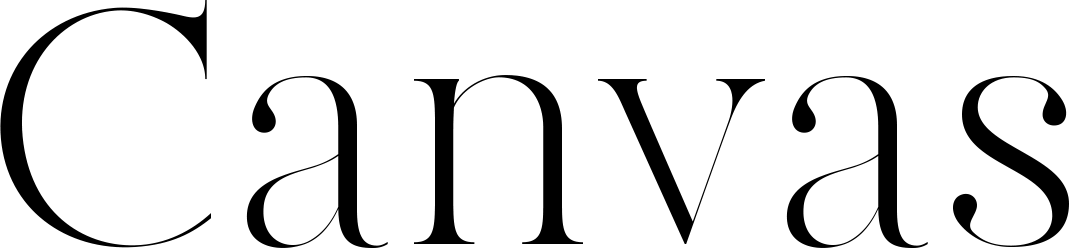
MADE Canvas Font
This modern fashion font has a classy look and stands the test of time. A super-strong contrast is visible in the design of this font. Under the serif font category, you can hardly find a didone font with hairlines as thin as MADE Canvas.
High-profile branding projects, logotypes, invitations, and such would benefit a lot from this font. Download it in 3 styles, then check out our recent updates on the serif font category and discover other hidden gems for future projects.
MADE Canvas is a family of high-contrast serif fonts. Canvas is a modern style “Didoni”. The typefamily includes 3 weights – Light, Regular and Black. The hairlines in all of the fonts are very thin.
The Canvas will perfect for many project: fashion, magazines, logo, branding, photography, wedding invitations, quotes, blog header, poster, advertisements, etc.